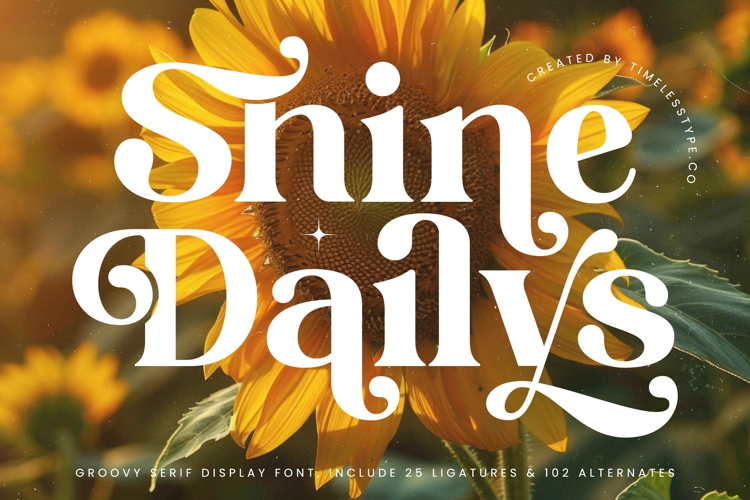
Shine Dailys - Groovy Serif Display Font
The Shine Dailys Typeface is a groovy serif display font with a bold, decorative, and retro-modern style. Featuring 25 ligatures and 102 stylistic alternates, this font gives designers full creative freedom to craft typography that is expressive, artistic, and highly versatile. Its thick letterforms with swirling decorative curves evoke a fresh retro-classic vibe combined with a contemporary touch, making it perfect for designs that aim to appear elegant, vibrant, and full of character.
This font is highly effective for editorial design, including lifestyle magazines, creative articles, art book covers, and modern zines. The wide range of alternates and ligatures allows for flexible visual compositions that look dynamic and richly detailed.
In branding and packaging, Shine Dailys is an excellent choice for fashion, perfumes, cosmetics, artisan beverages, and exclusive lifestyle brands. Its decorative, retro-elegant aesthetic creates a brand identity that feels both iconic and refined.
For entertainment and promotional design, this typeface works beautifully on movie posters, music album covers, art festival branding, and creative advertising campaigns. Its artistic character enhances visual storytelling with a theatrical and stylish flair.
In the field of digital design, Shine Dailys performs at its best across social media content, website branding, digital advertising, and motion graphics. With multilingual support, it adapts seamlessly to global projects with consistent visual impact.
In short, Shine Dailys Typeface is a groovy serif display font designed to bring retro-modern charm, decorative elegance, and creative flexibility. Perfect for editorial, branding, packaging, entertainment, advertising, and digital campaigns, this font transforms typography into a stylish, timeless, and energetic visual icon.